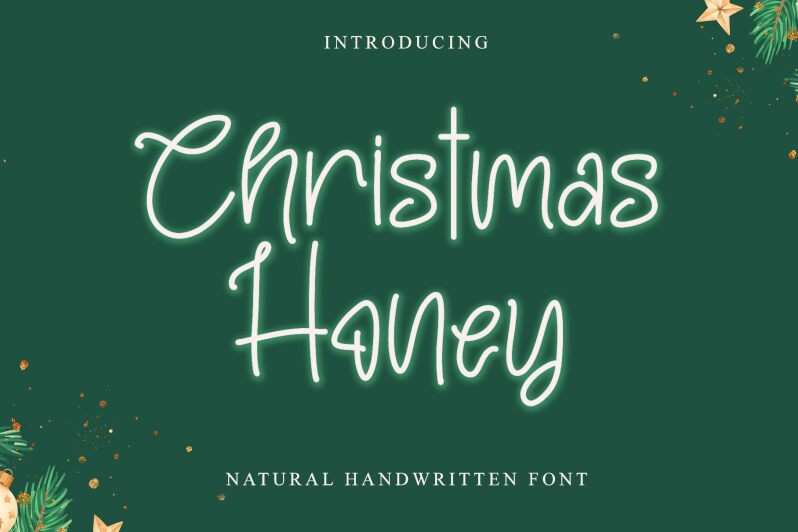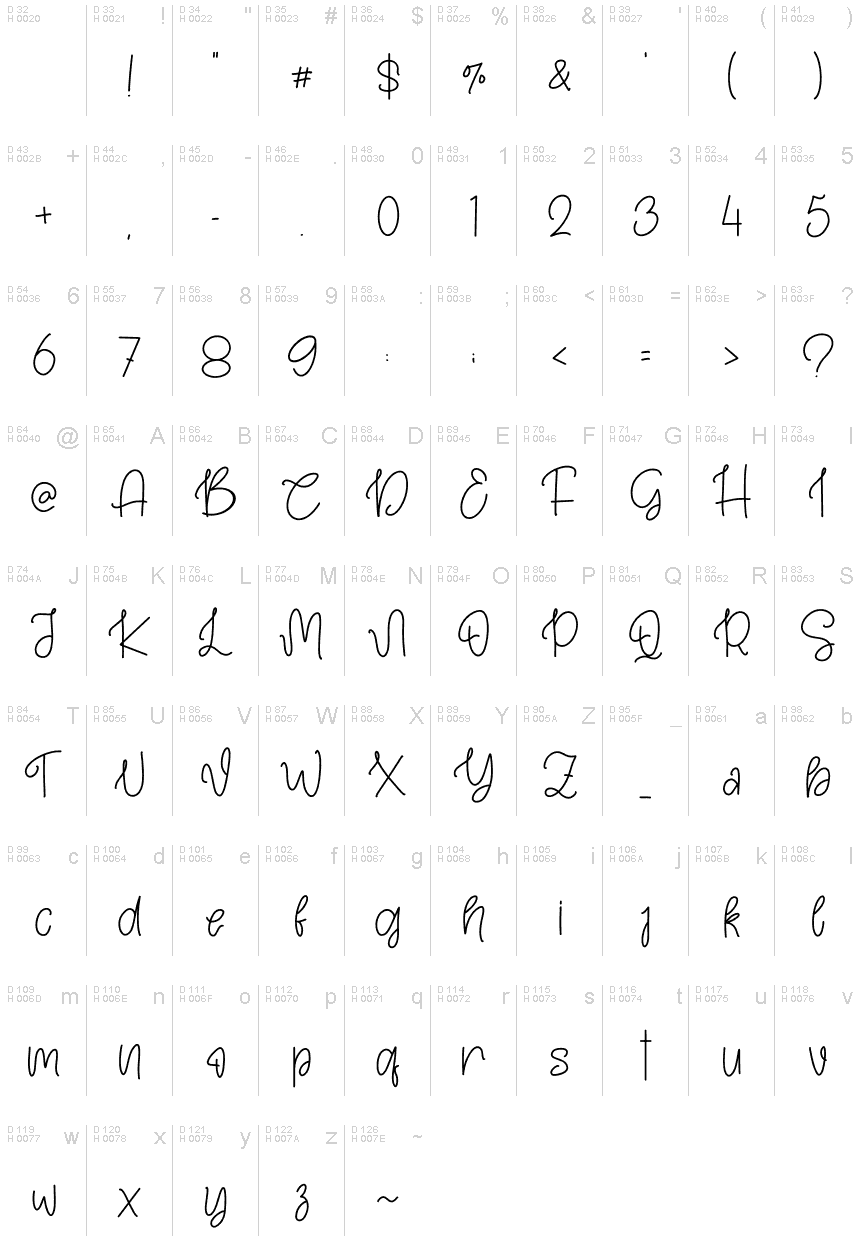
Christmas Honey Regular
Christmas Honey, designed by Letterafa Studio, is an artful handwritten font that exudes warmth and charm with its extra-light weight. Its delicate and flowing characters bring a personal touch to any project, reminiscent of heartfelt holiday notes penned by hand. The font's elegant curves and fine lines suggest a casual sophistication that makes it perfect for seasonal greetings, invitations, or any creative endeavor seeking a touch of whimsy and personalization.
Embrace the festive spirit with Christmas Honey—a font that effortlessly transforms your design into an enchanting message wrapped in the coziness of handwritten correspondence.